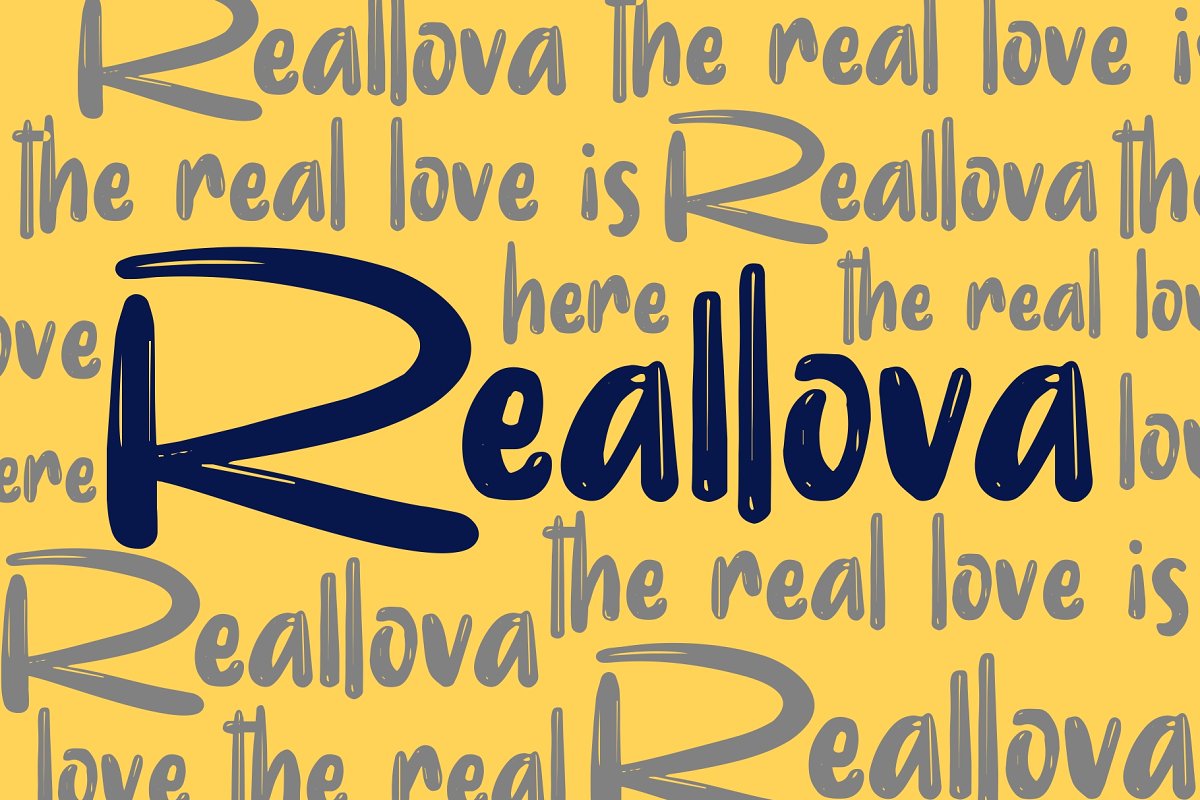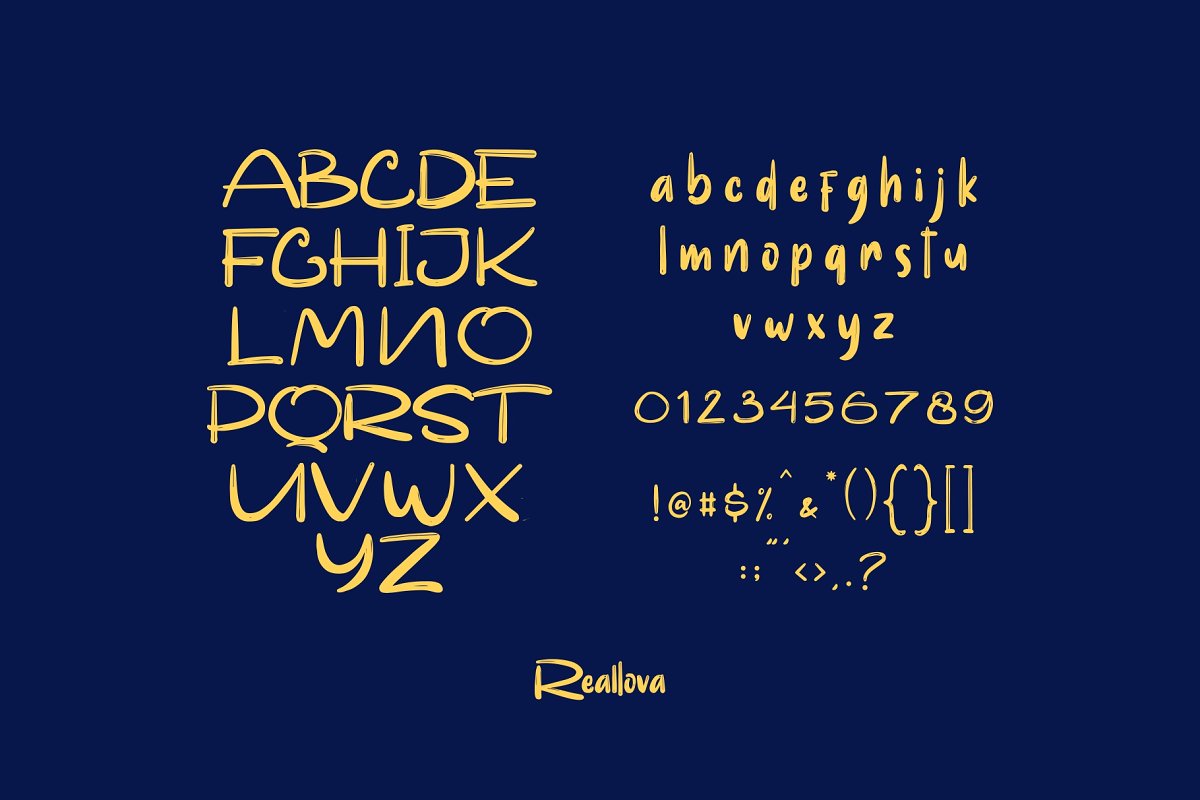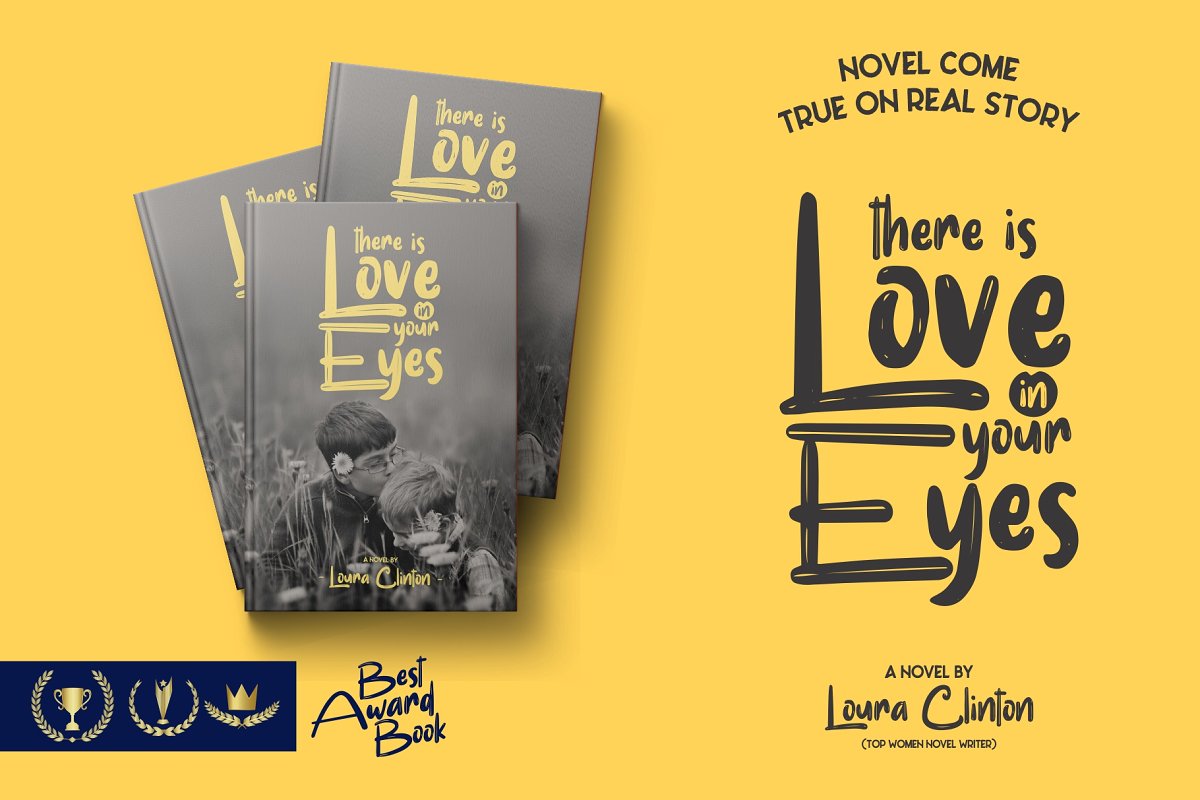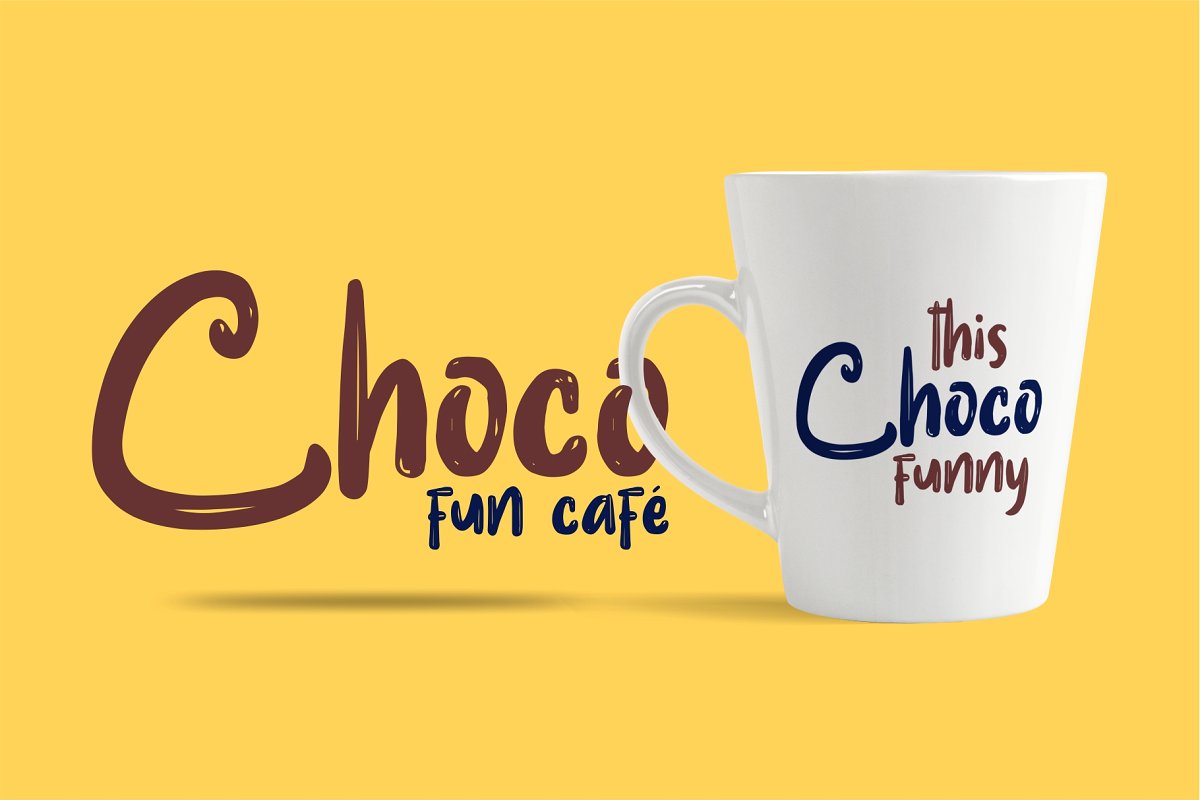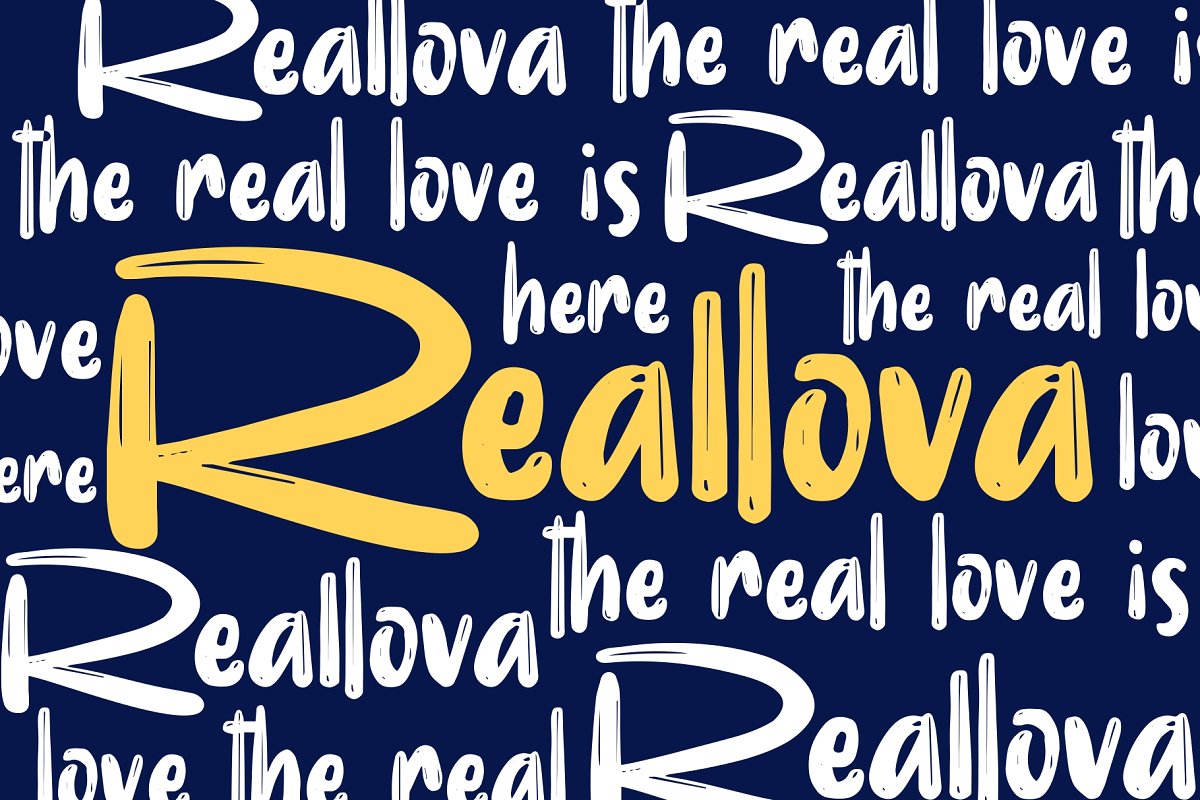
Reallova Brush Font
Reallova Brush Font – Free Demo
This is a very special script type, it is bold and brush style. This is a hard brush script font with the addition of several strips in each letter that makes this font look stronger and elegant. Add it now to your fonts collection. Introducing Reallova Brush Font. With a touch font display, Reallova provides a bold touch, fun and a little with a brush effect that will add a natural love for your design. This font is very suitable to be used as a book title, typography design, poster, quote, shirt design, logo type, template, banner, flyer, headline title, and many more.